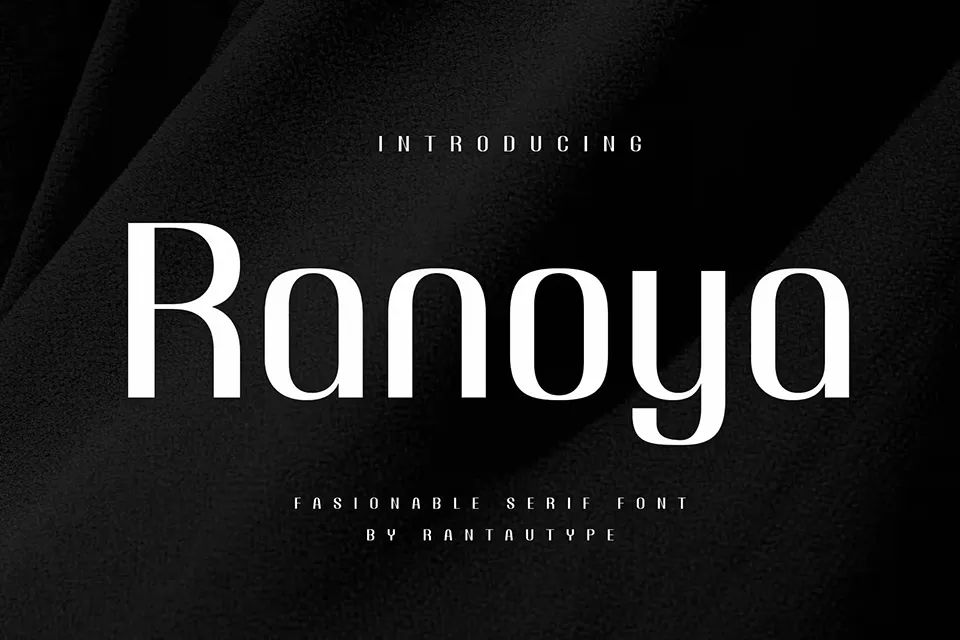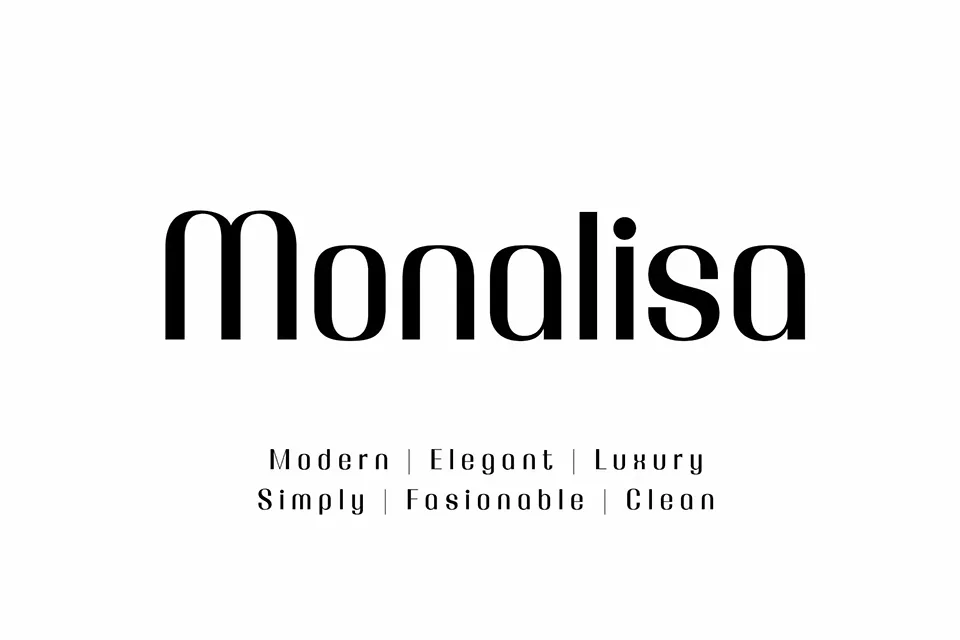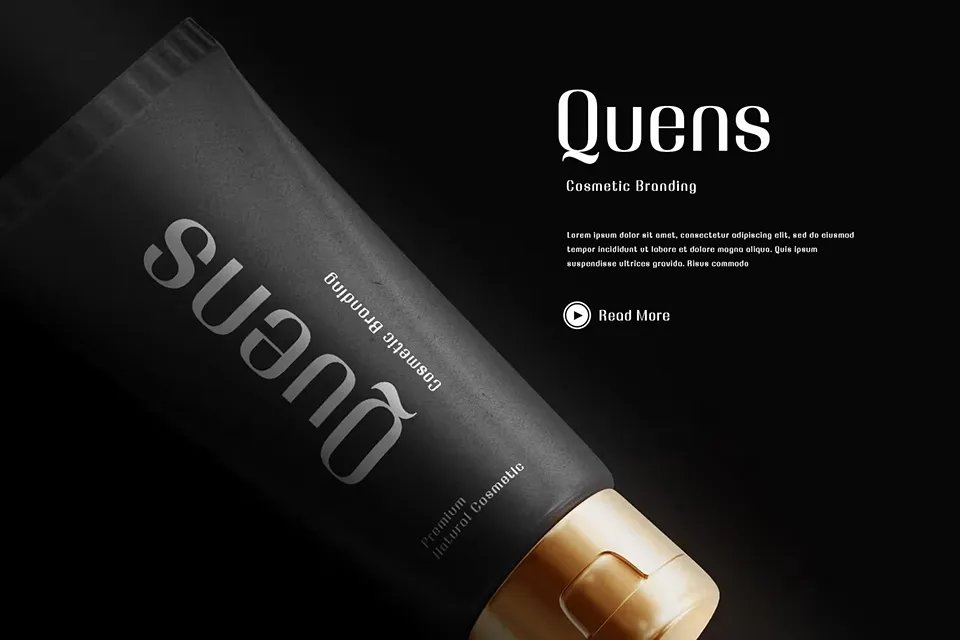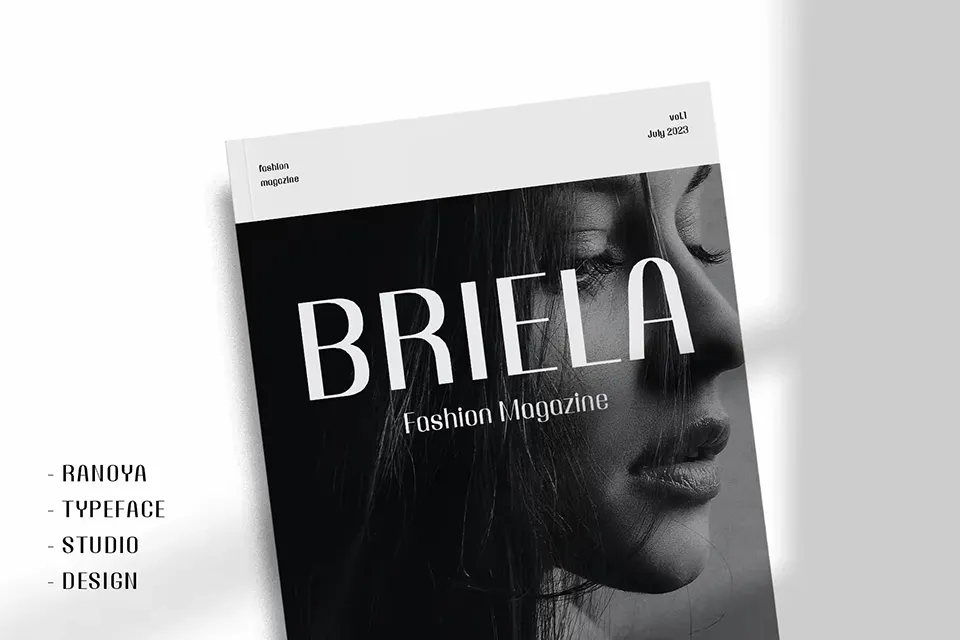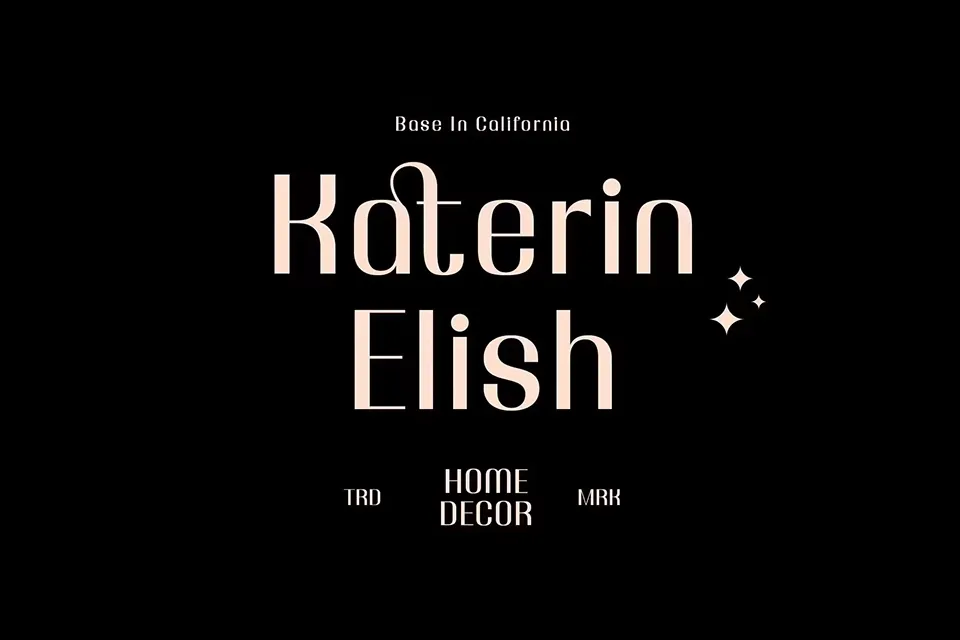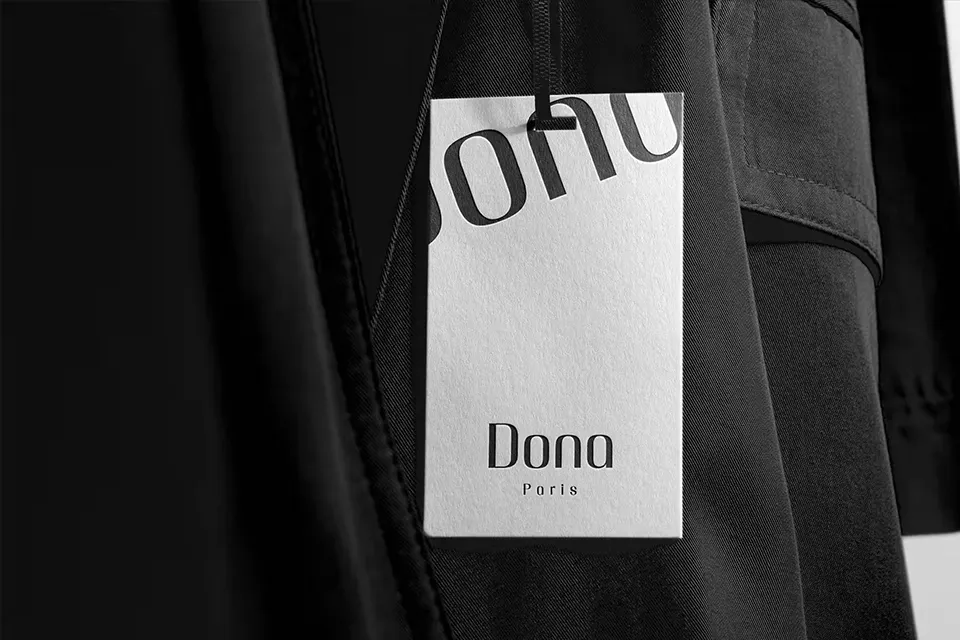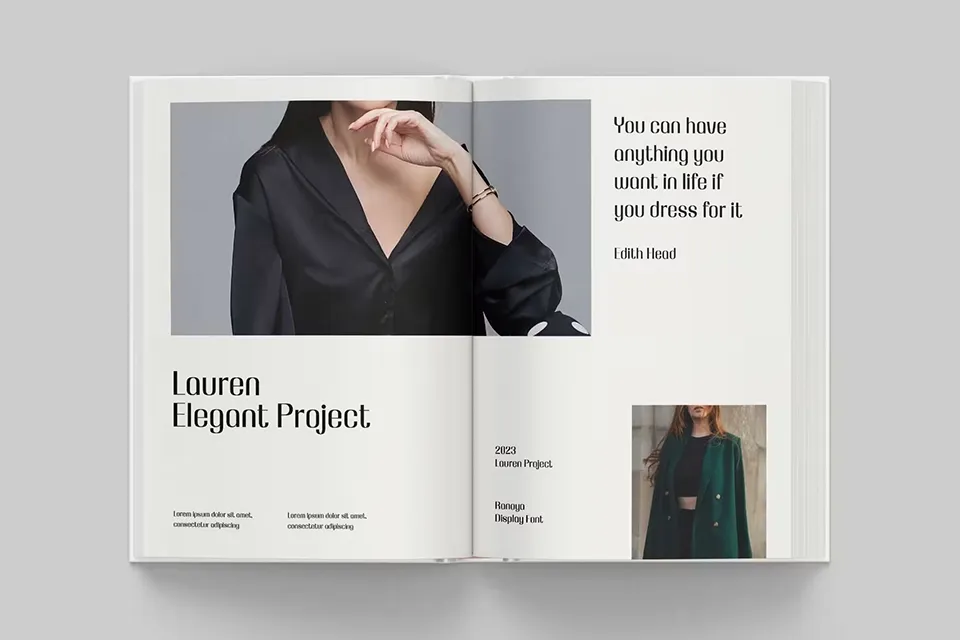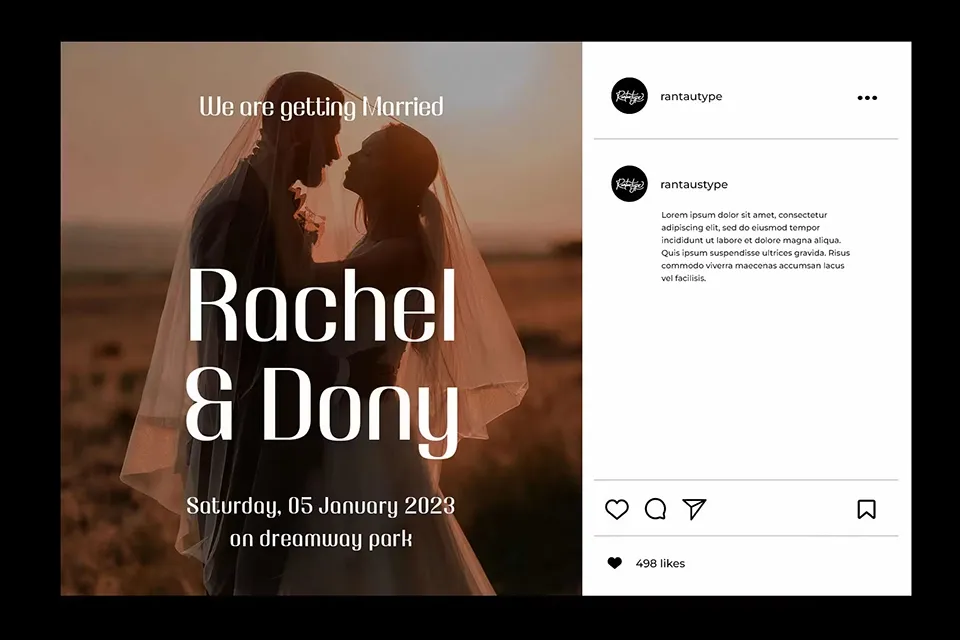
Ranoya Font
Ranoya Fasionable Serif Font is an elegant and fashionable display serif font with a sophisticated shape. Designed to appear professional, luxurious, and modern, it features both regular and italic styles, alternates, ligatures, and multilingual accent support. Its clean lines and stylish contrast make it a perfect choice for branding, covers, logos, magazines, business projects, weddings, and advertising. Accessible on both PC and Mac, and compatible with major design software, Ranoya Fasionable Serif Font helps your creative work stand out with a chic, premium look.